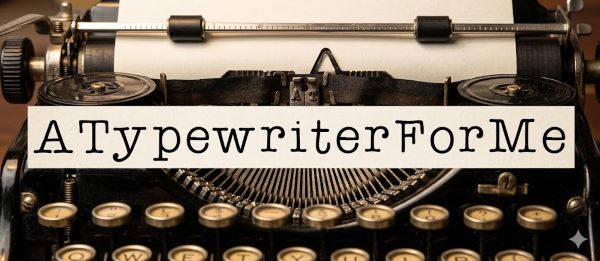
A Typewriter For Me Font
A Typewriter For Me by Zachary Lucier is a free typewriter font with a warm personal ownership in its very name — its letterforms capturing the affectionate relationship between a writer and their machine, delivering exactly the kind of intimate, slightly imperfect typewriter font character that feels like it belongs to someone. With 456,000+ downloads and a 100% free license including commercial use, it has become a consistently trusted choice for journaling aesthetics, personal branding, stationery, and heartfelt design projects.